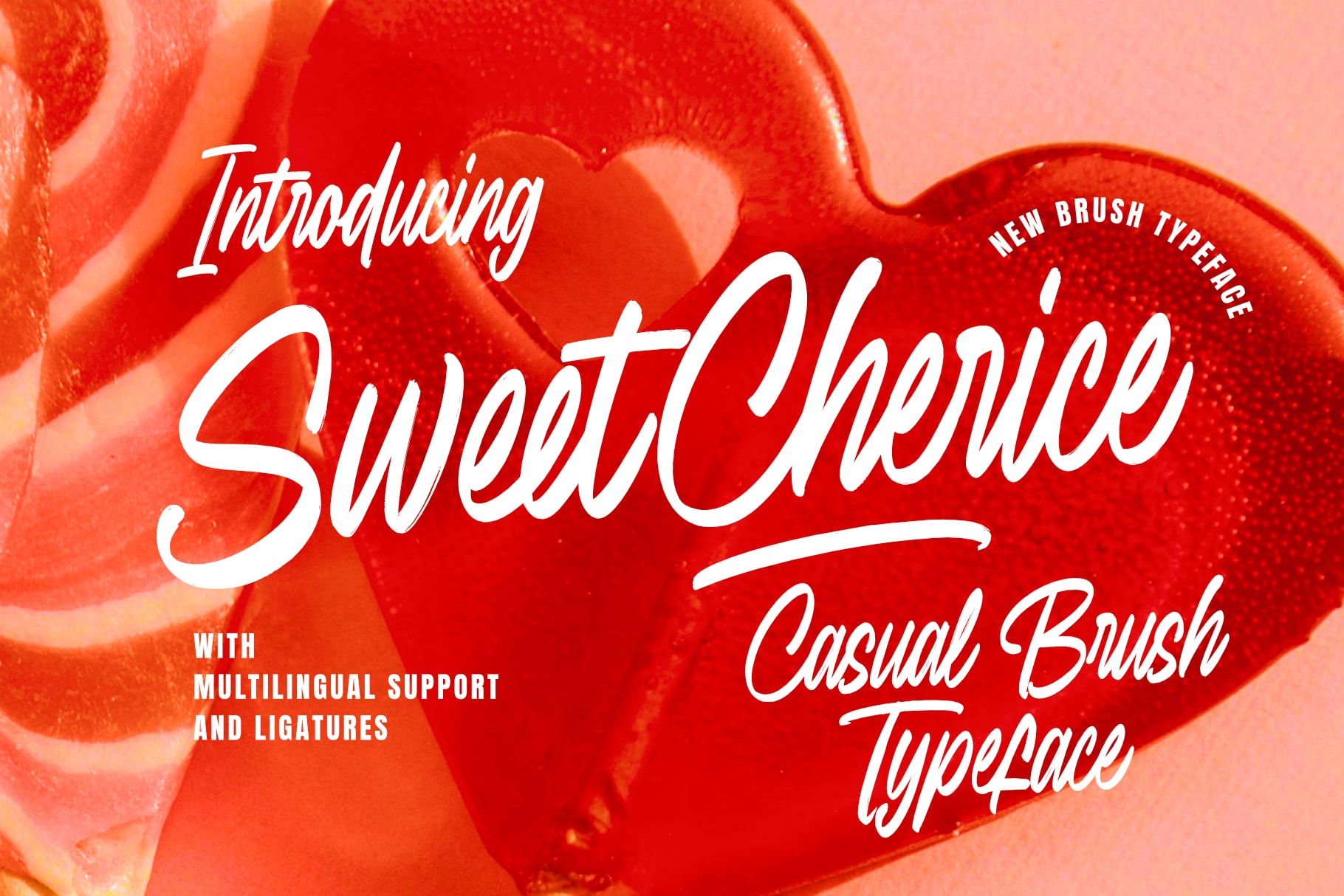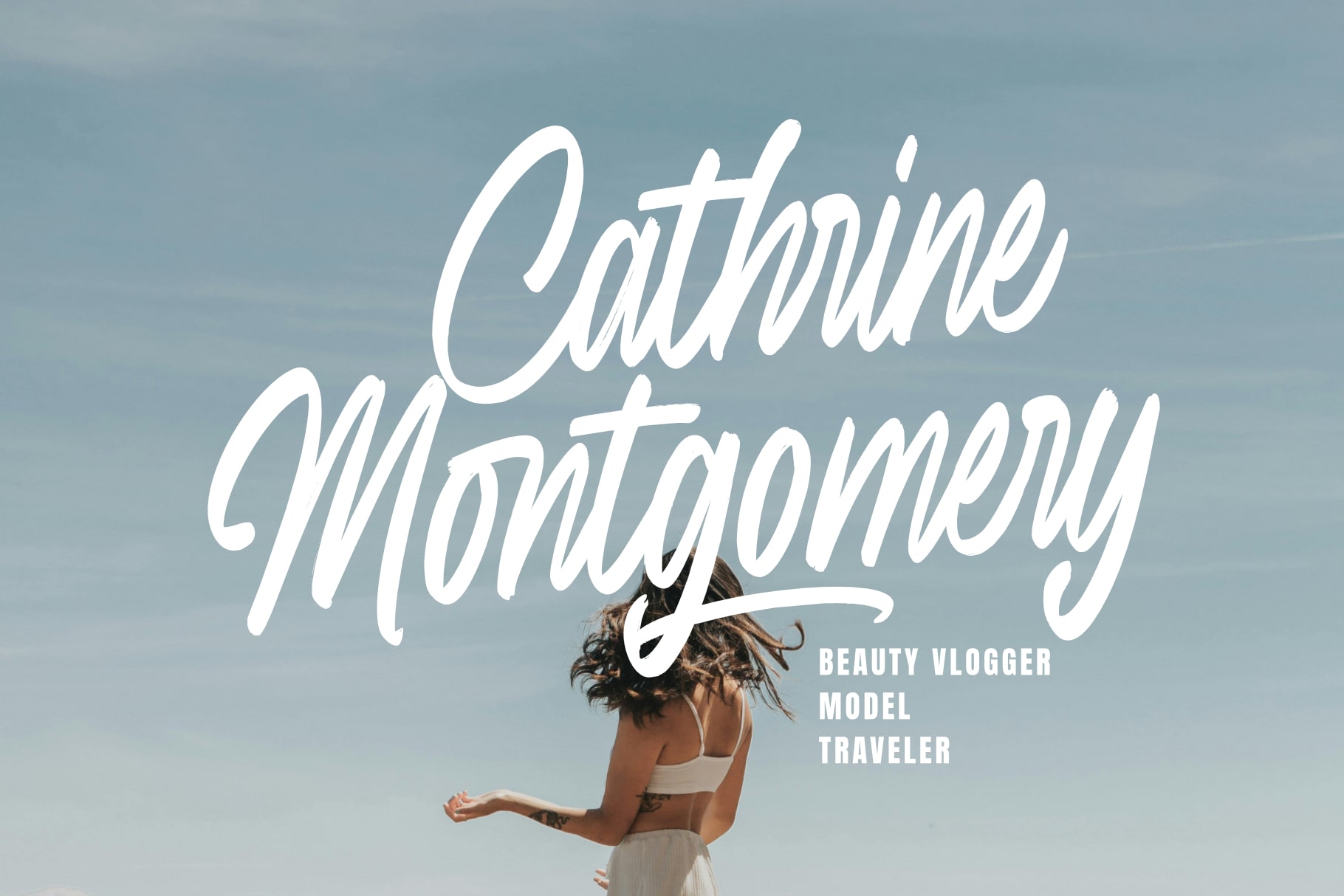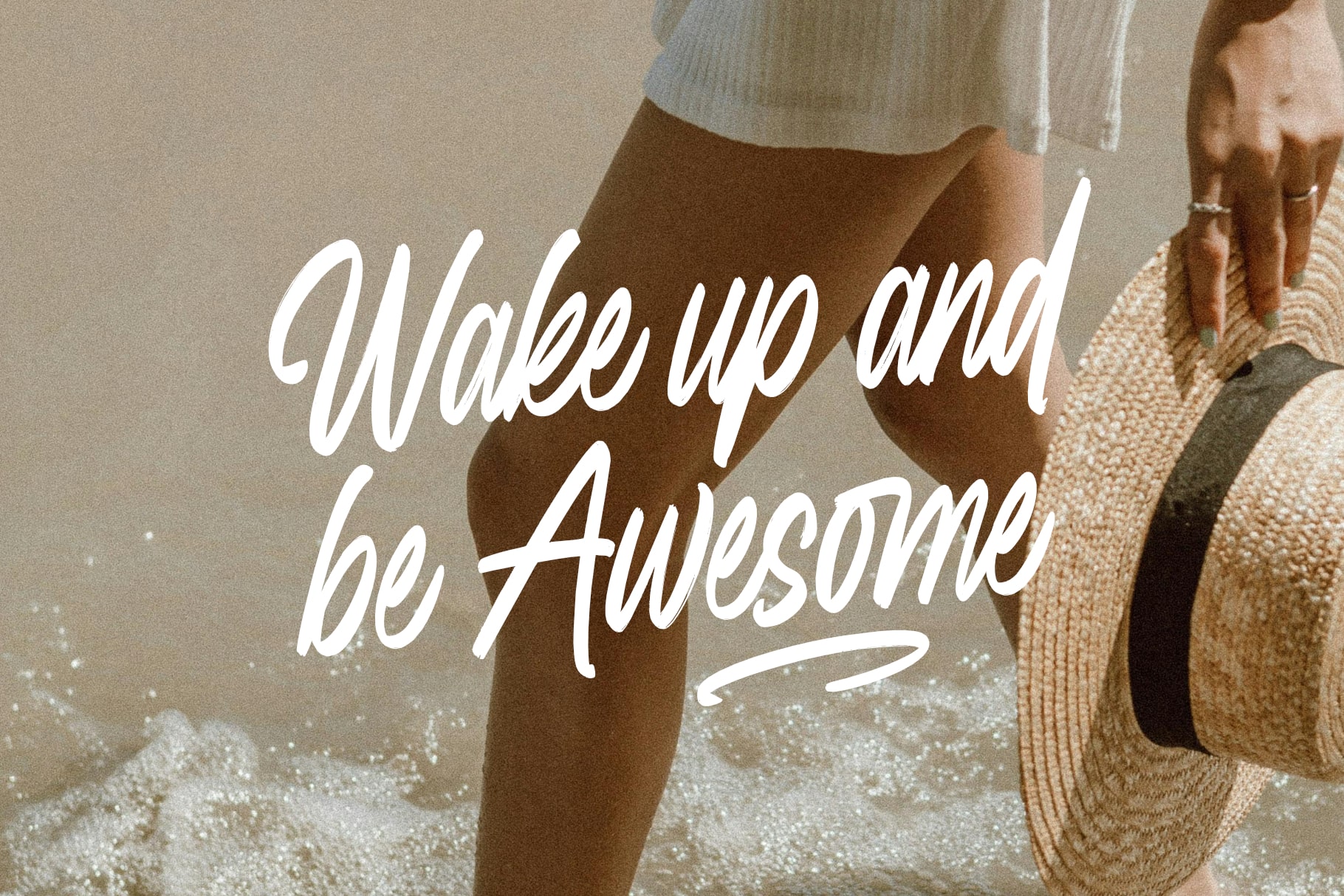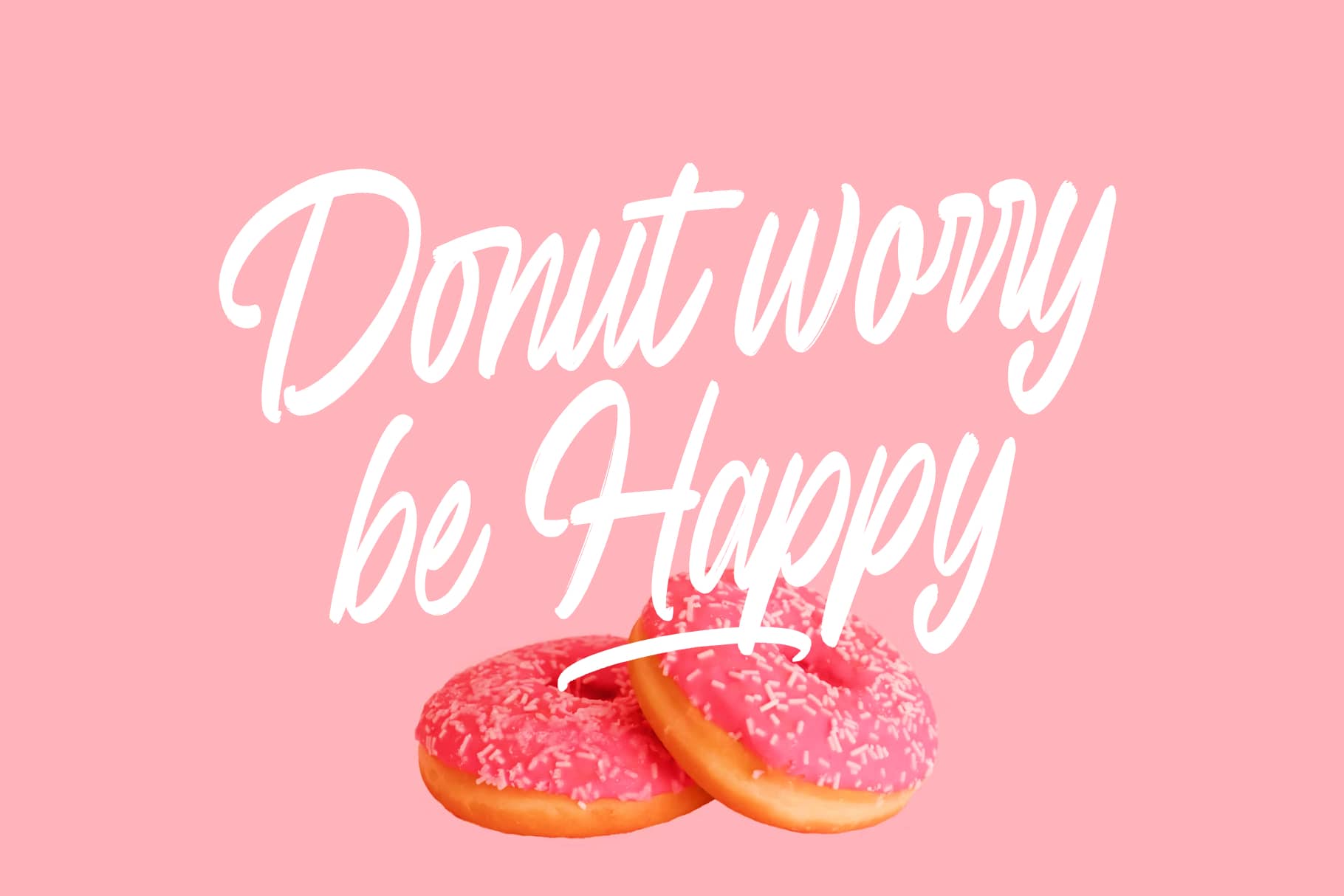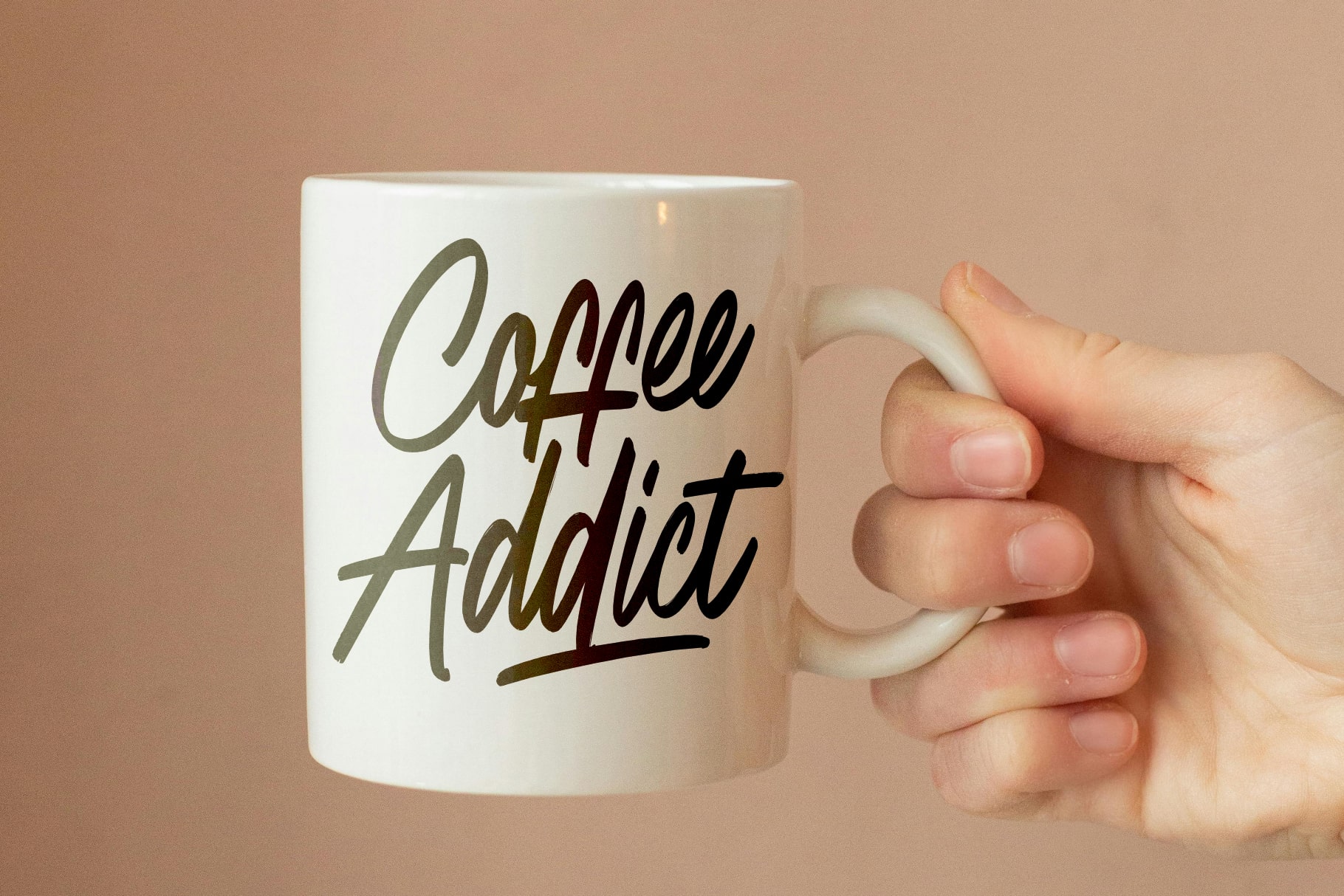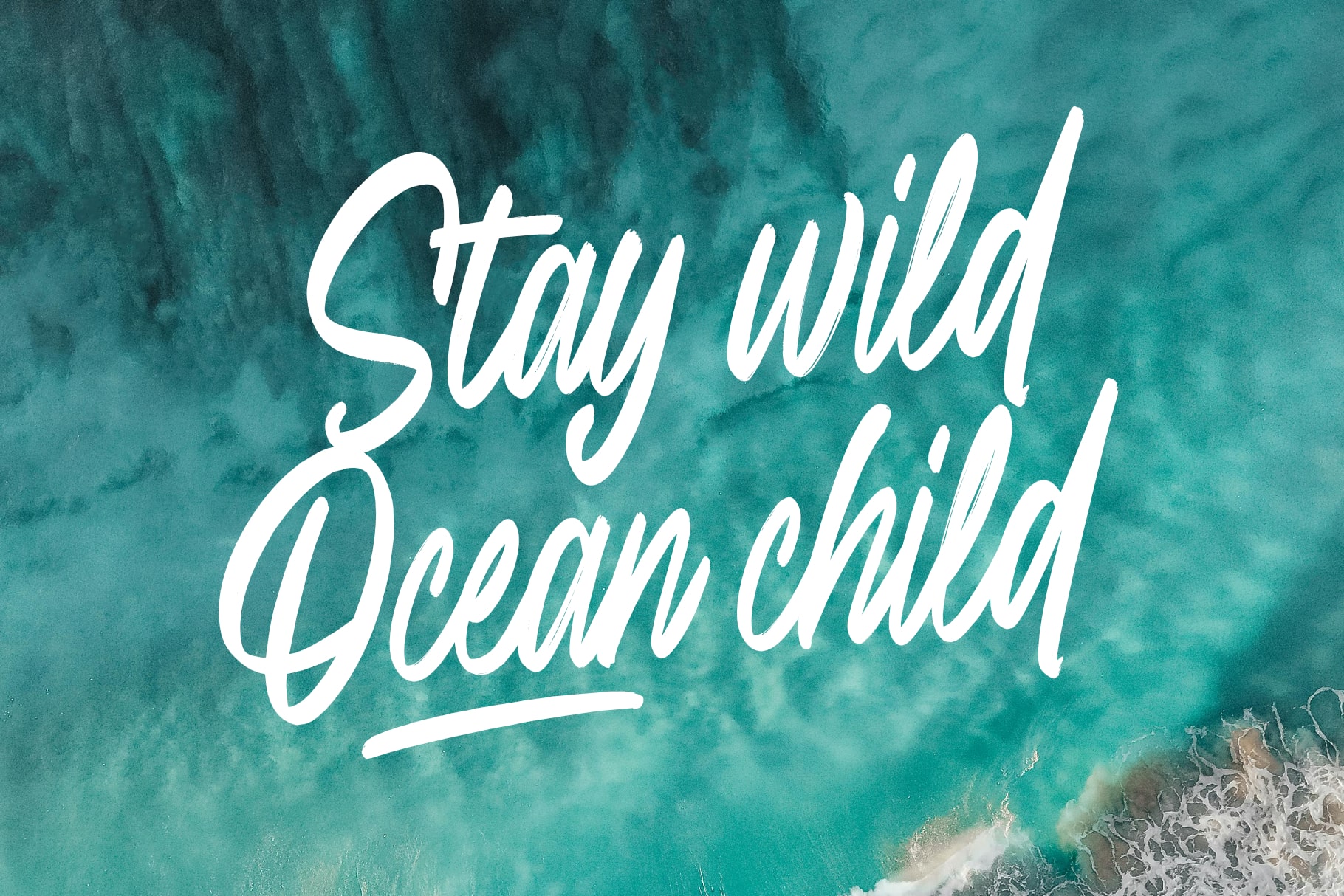
- Sweet Cherice casual brush typeface
Sweet Cherice is a cool and casual brush typeface that brings a playful and energetic vibe to your designs. With its bold, hand-drawn strokes and dynamic letterforms, this font captures the spontaneity and charm of real brush writing. Perfect for projects that seek to convey a relaxed and friendly atmosphere, Sweet Cherice adds a touch of fun and personality to every creation.